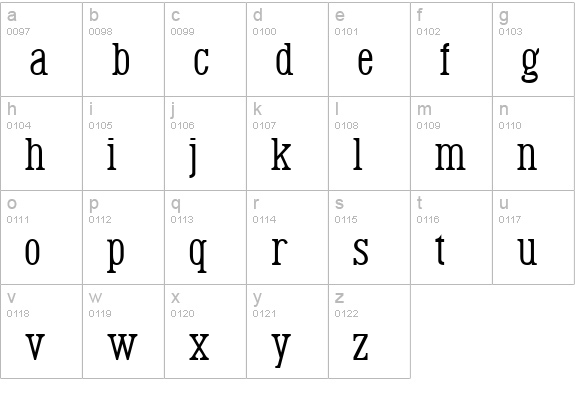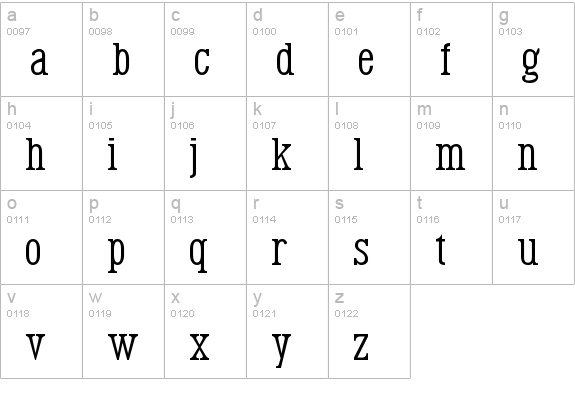
Renslaer Font Details
Introducing Renslaer, a captivating font that effortlessly combines elegance and modernity. Crafted with meticulous attention to detail, this typeface is perfect for adding a touch of sophistication to any project. Renslaer boasts clean lines and a timeless appeal, making it ideal for a wide range of design applications. From stylish logos and branding materials to elegant invitations and eye-catching headlines, this versatile font is sure to make a lasting impression. With its wide range of weights and styles, Renslaer offers endless possibilities for creative exploration. Whether you're aiming for a sleek and minimalist look or a bold and impactful design, this font has got you covered. And the best part? Renslaer is free! That's right, this beautiful font is freely available to download at FontsMarket.com. Say goodbye to expensive font licenses and hello to unlimited creativity without breaking the bank. So why wait? Discover the beauty of Renslaer and elevate your designs to new heights. Download this exquisite font today and unleash your creativity like never before.